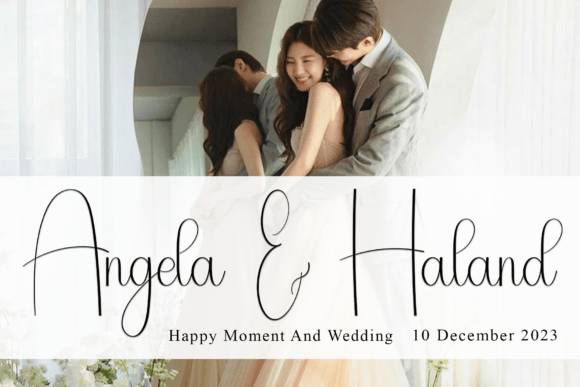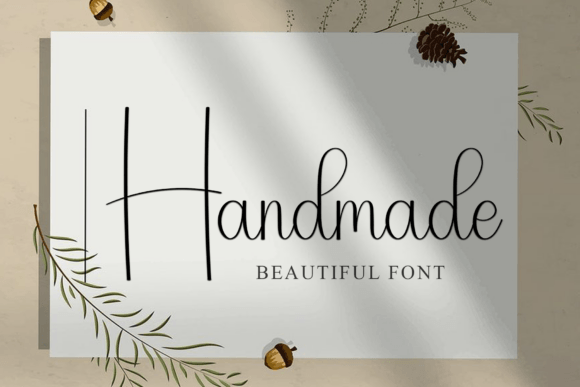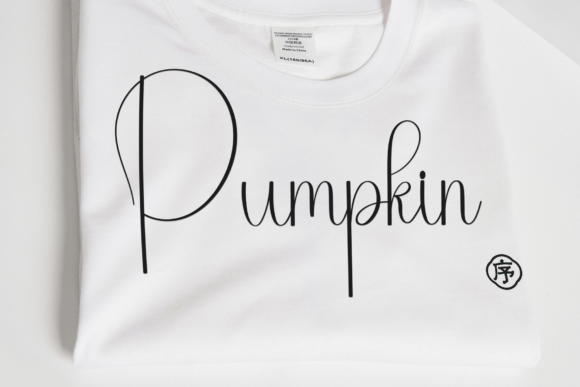
Simple Handwriting Font
Simple Handwriting is a stylish and incredibly elegant script font. It looks stunning on wedding invitations, thank you cards, quotes, greeting cards, logos, business cards and every other design which needs a handwritten touch.This font is PUA encoded which means you can access all of the amazing glyphs and ligatures with ease!